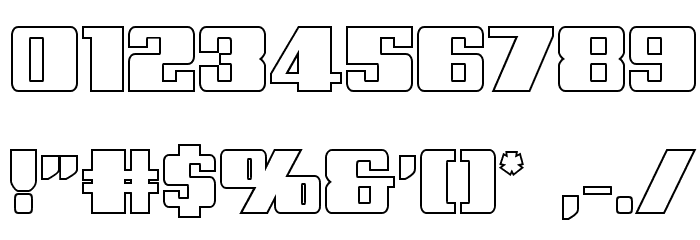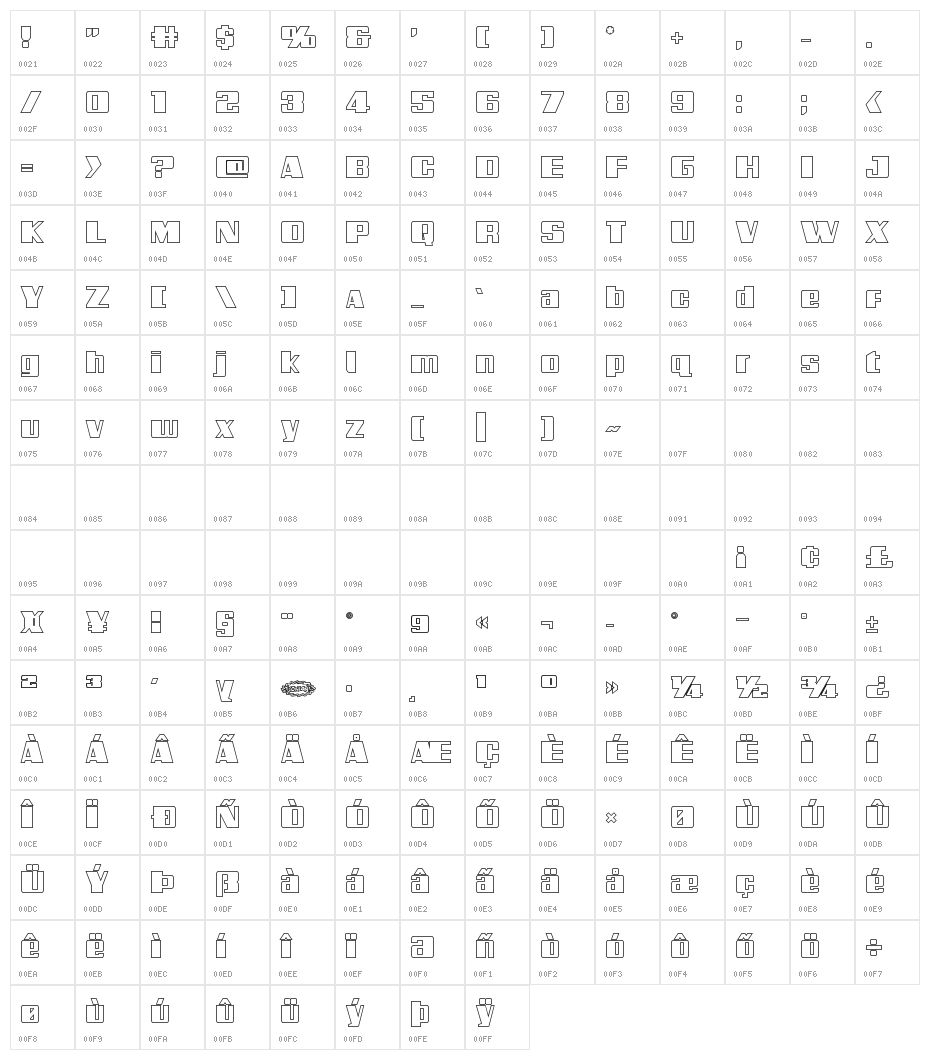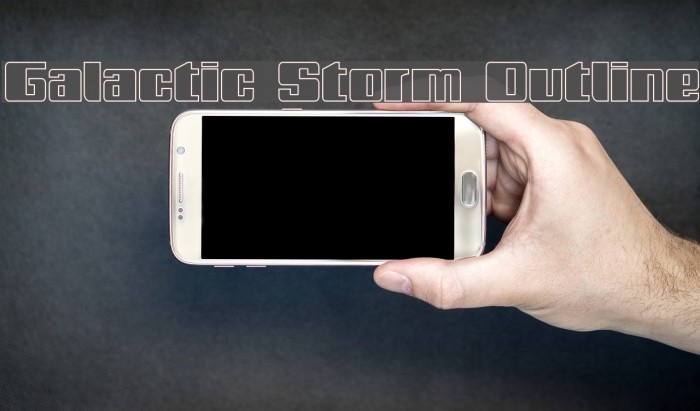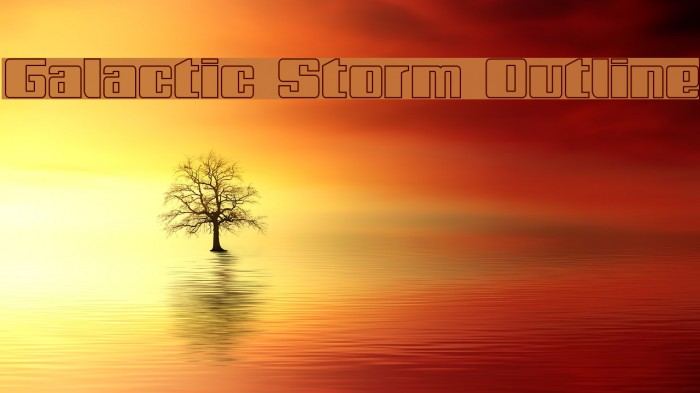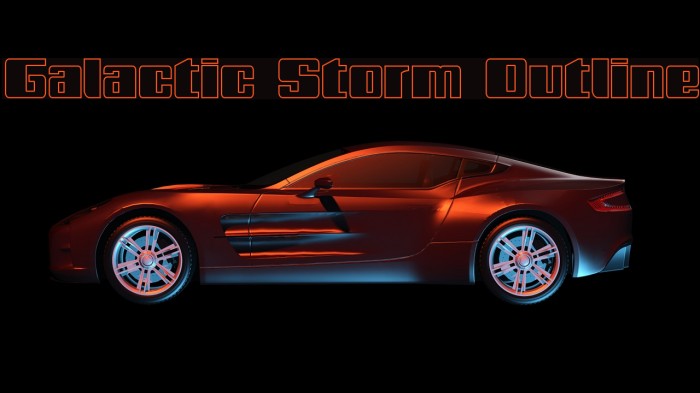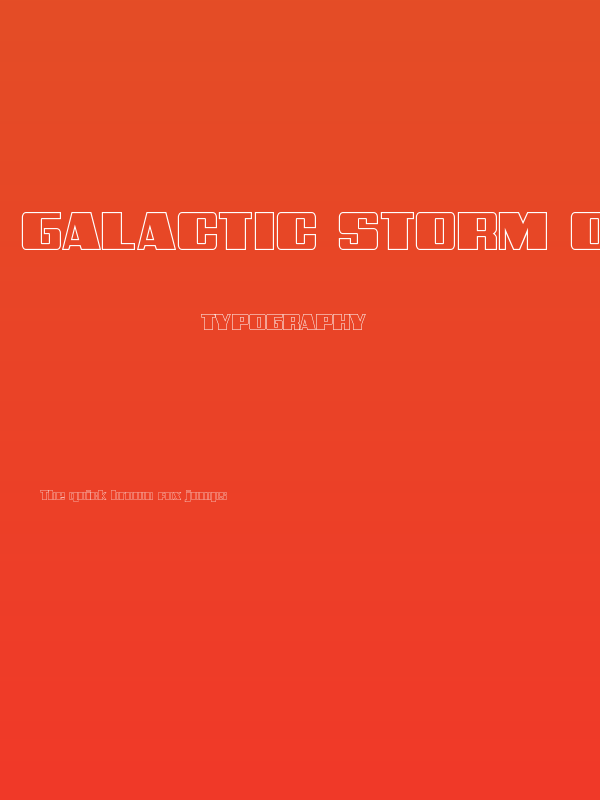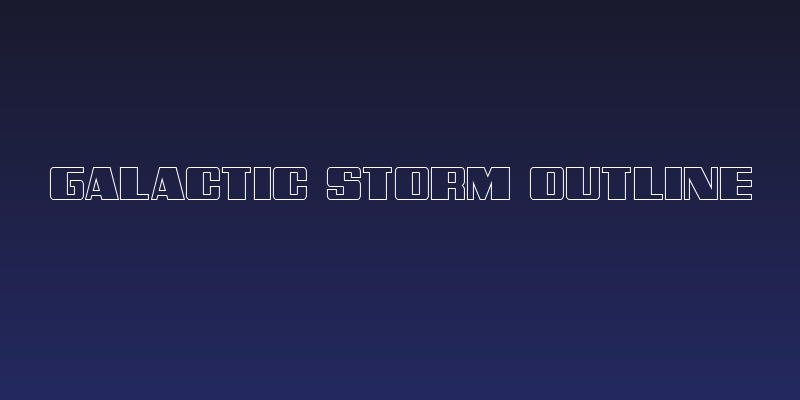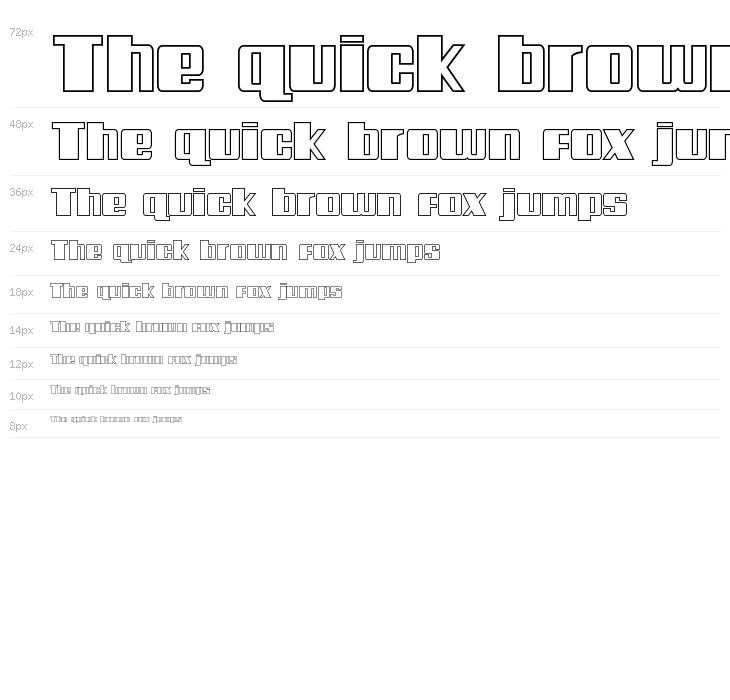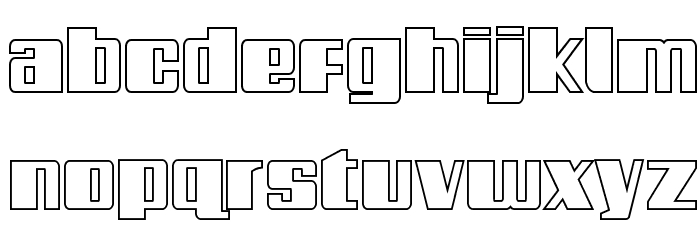
Galactic Storm Outline Font
Galactic Storm Outline Description
This font features a bold, geometric outline style that gives it a futuristic and dynamic appearance. The characters are constructed with sharp angles and straight lines, creating a sense of movement and energy. The uppercase and lowercase letters maintain a consistent height, contributing to a uniform look. The numbers and special characters are designed to match the boldness and angularity of the alphabet, ensuring a cohesive visual identity. This font's outline design allows for creative use of color and background, making it versatile for various design applications.
| Proposed Projects | Ideal for sci-fi themed posters, video game titles, futuristic branding, and digital artwork. |